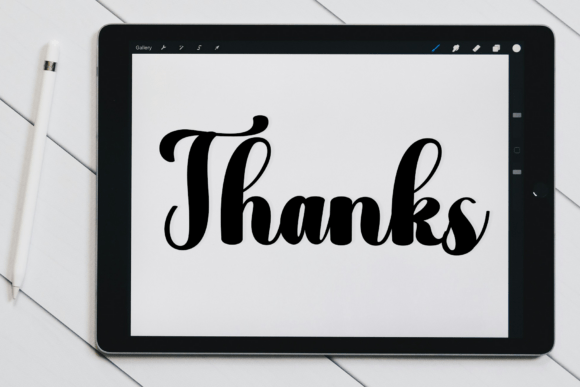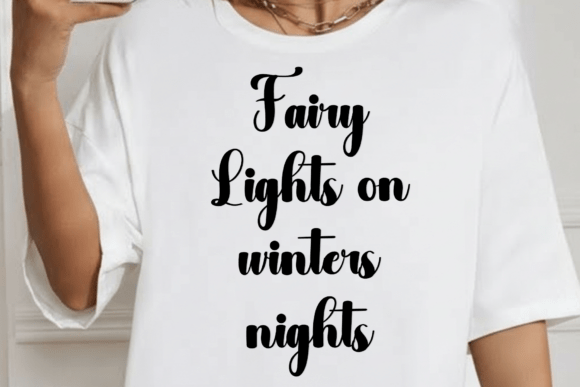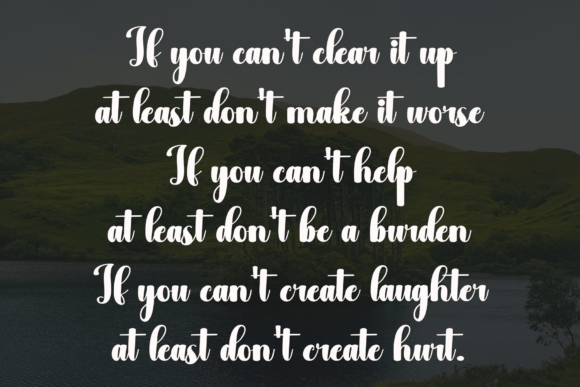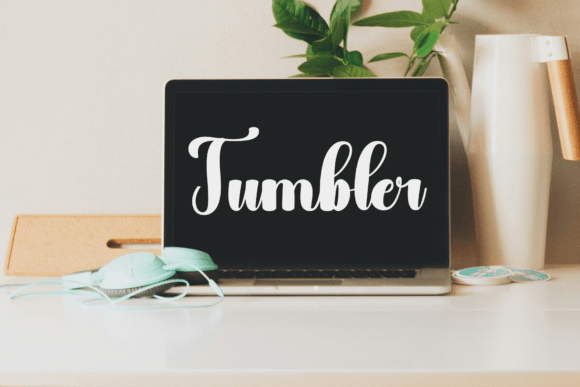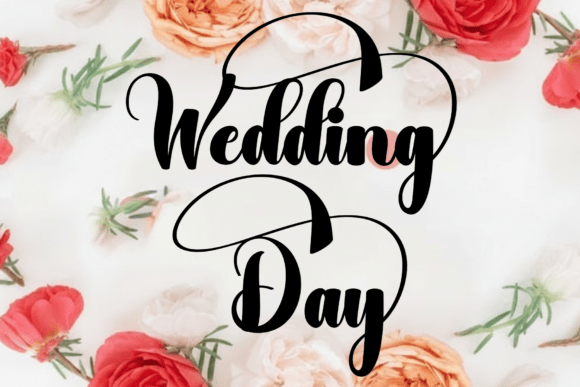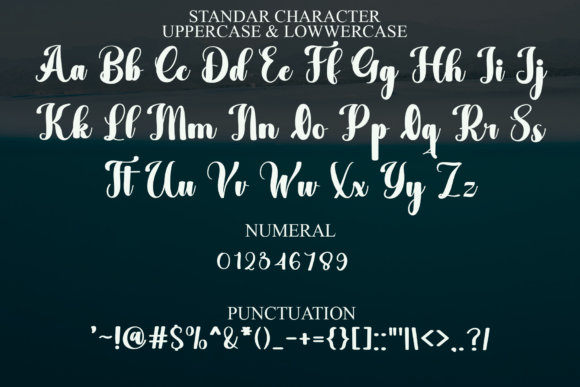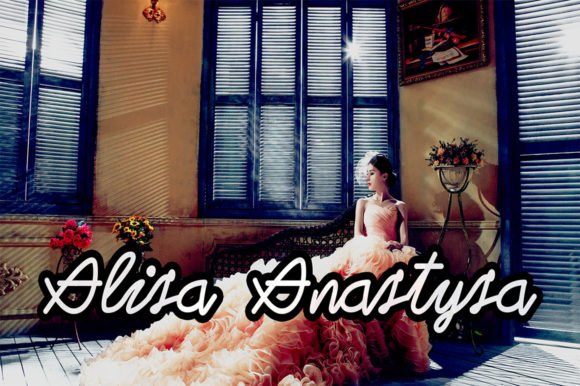
Deck the Halls with the Magic of Camping Font
It’s that time of the year when creativity knows no bounds, and the festive spirit takes over. You’re sipping hot cocoa, surrounded by twinkling lights, and brainstorming ideas for the perfect holiday design. Suddenly, the spark of inspiration strikes, and you envision a merry typography that embodies the joy of the season. Welcome to the enchanting world of Camping Font, a festive and whimsical typeface that’s sure to capture the essence of your holiday projects.
Camping Font is the perfect companion for designers who want to add a touch of nostalgia and cheer to their designs. With its decorative elements and playful flair, this font is ideal for greeting cards, gift tags, and holiday-themed projects that require a dash of magic. And the best part? It’s PUA encoded, making it easy to access all the amazing glyphs and ligatures that will elevate your typography to the next level.
Camping Font Key Features
- Font Family: A unique, hand-drawn font designed to evoke the feeling of outdoor camping.
- Character Count: The font includes a wide range of characters, including uppercase and lowercase letters, numbers, and punctuation.
- Unique Characteristics: Features a natural, handwritten feel with subtle imperfections and variations in line width, giving it a unique and authentic look.
Camping Font Review
Overall, I was pleasantly surprised by the Camping Font. It has a certain charm to it that is reminiscent of the great outdoors. Here are some things that really work well:
- ✨ Unique and quirky design that’s perfect for camping-themed projects.
- ✨ The font is highly legible, even at smaller font sizes.
- ✨ The font comes in a range of weights and styles, making it versatile for different design applications.
- ⚠️ The font may not be suitable for projects that require a more formal or professional tone.
- ⚠️ Some characters may not be as well-designed as others, which can be distracting in certain contexts.
- ⚠️ The font may not be as widely supported as more popular fonts, which can cause issues in certain design applications.
Overall, I think the Camping Font is a great choice for projects that require a fun, adventurous vibe. While it may not be perfect, it’s a unique and charming font that can add a lot of personality to your designs.
- Use the font for outdoor-themed projects, such as camping, hiking, or nature-inspired designs.
- Combine the font with other outdoor-themed graphics, such as trees, mountains, or wildlife.
- Experiment with different font sizes and styles to create a unique and eye-catching design.
The Camping Font is commonly used for:
- Camping and outdoor-themed projects.